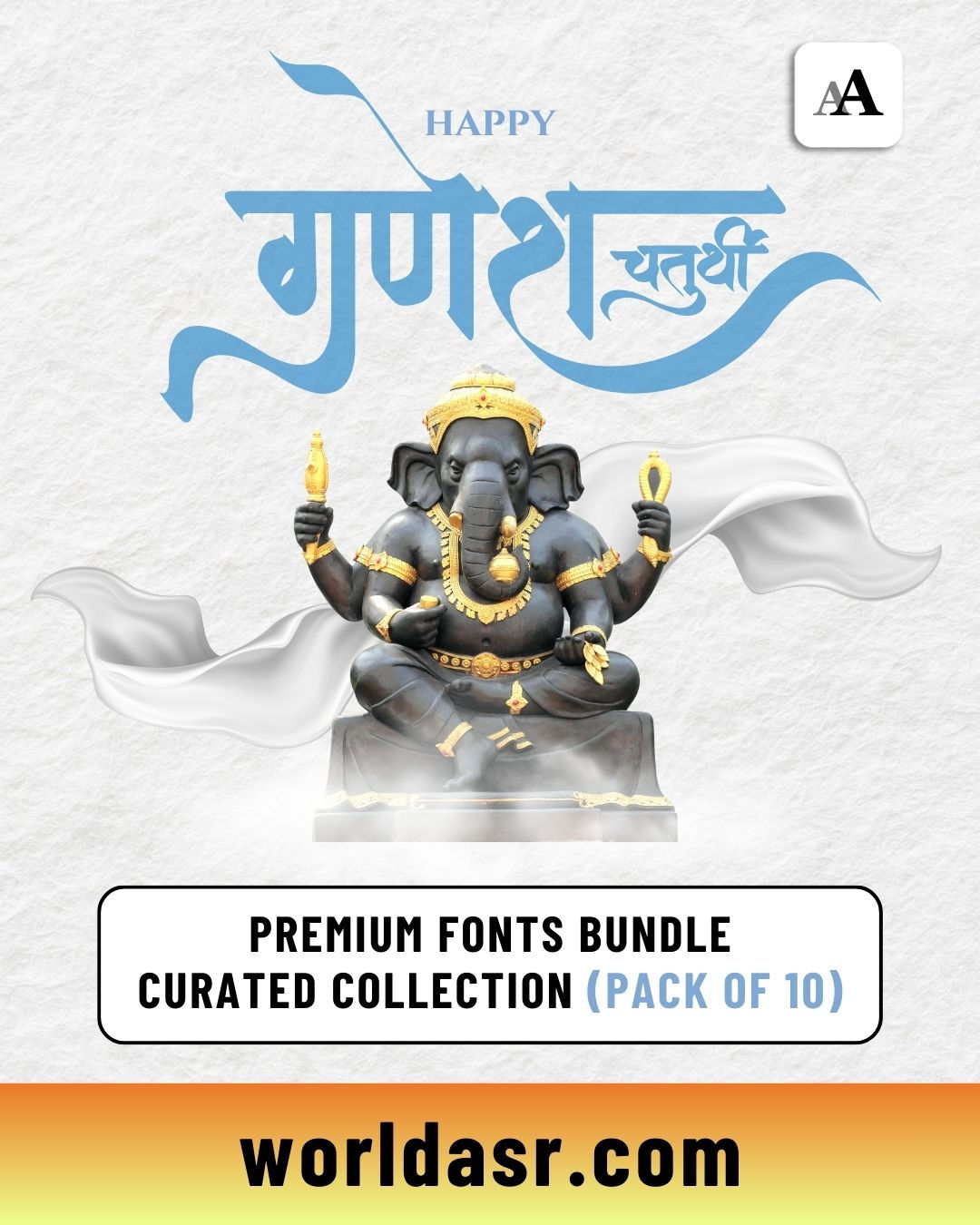
Celebrate the elegance of tradition with our Ganesh Chaturthi – Premium Fonts (Pack of 10).
A festive typographic collection crafted to elevate your spiritual and cultural designs. These fonts blend ethnic flair with modern readability, making them perfect for invitations, posters, social media content, and branding during Ganpati celebrations.
🔤 10 Unique Devotional & Festive Fonts with Indian cultural essence
🕉️ Inspired by Ganesh Utsav themes - modaks, mandalas, and more
Add grace and festive vibrance to your designs with fonts that speak devotion and style.